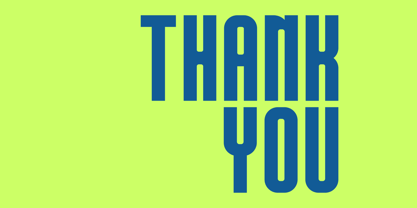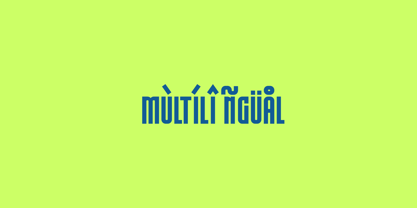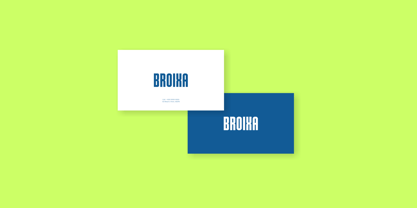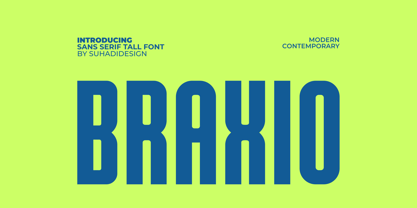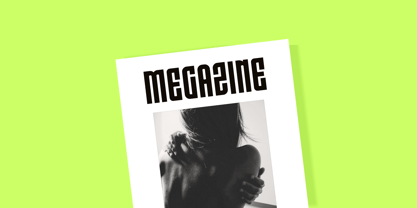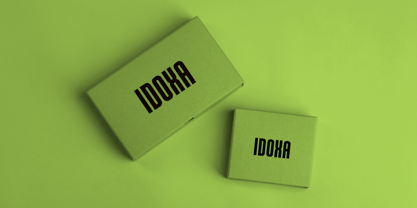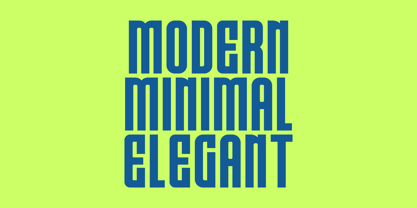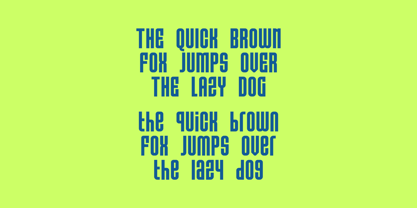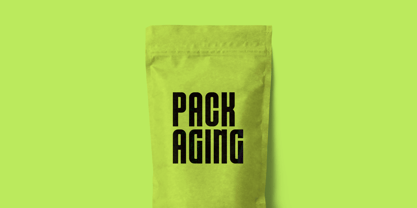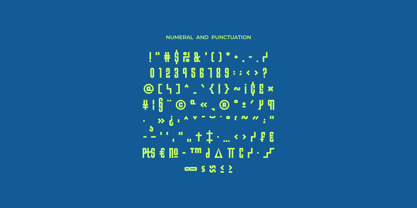
Braxio
The Braxio Font Family was designed by ahmad suhadi and published by suhadidesign. Braxio contains 1 styles. More about this family
Braxio - Condensed Bold Tall Font Hi, ladies and gentlemen! Following market demand, I created a captivating, tall, bold sans serif font. So, I decided to create this sans serif font. Braxio is a stylish, highly stylized sans serif font that's a market favorite. We've kept this font elegant, classy, ​​modern, stylish, contemporary, and easy to use. Braxio is a great choice for magazines, book covers, shopping bags, packaging, logos, labels, fashion, posters, banners, bags, brands, fashion, brand names, branding, quotes, and other projects. Braxio is here to take your designs to the next level. Braxio's font style will make you enjoy designing and enjoy the cool designs it produces. Stay tuned for the latest information about font creation :) Font Features: • Uppercase • Lowercase • Multilingual support • Numbers and punctuation Thank you!